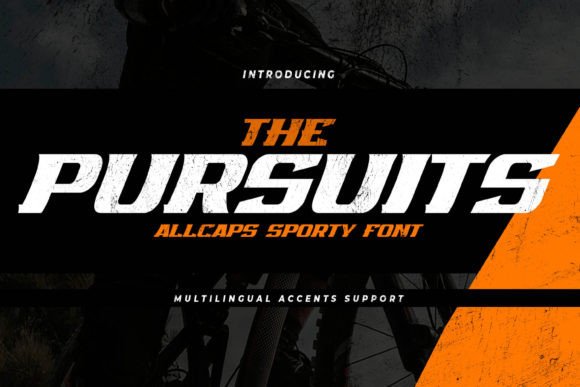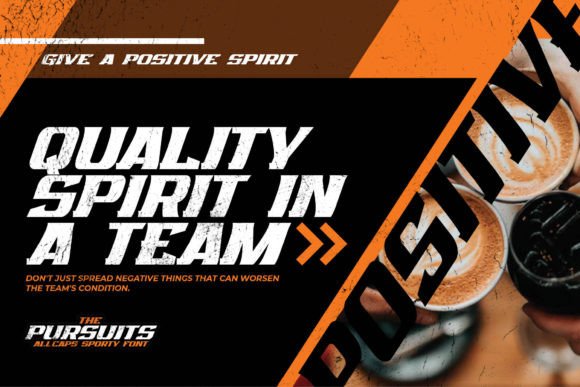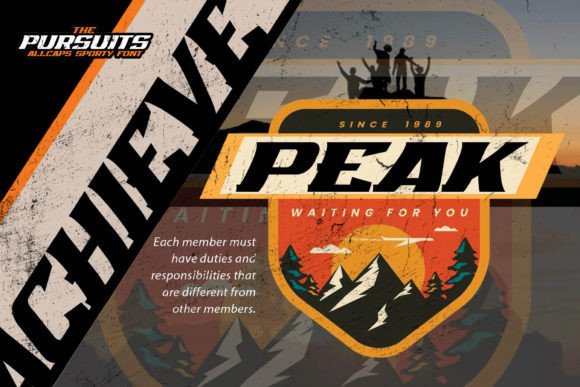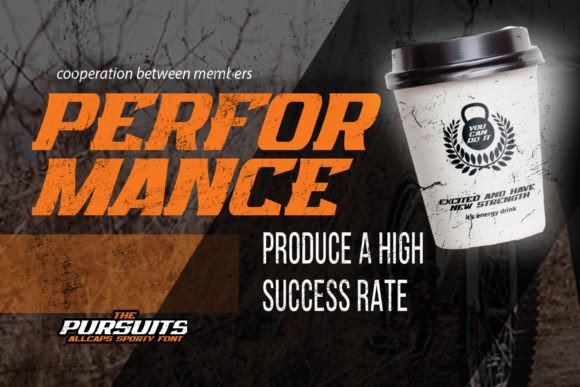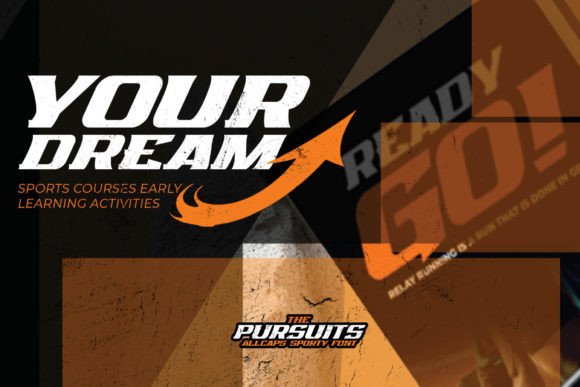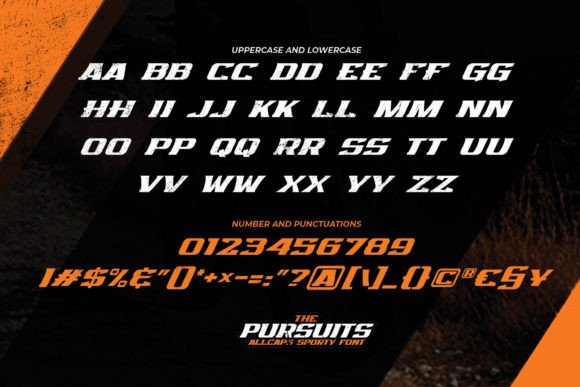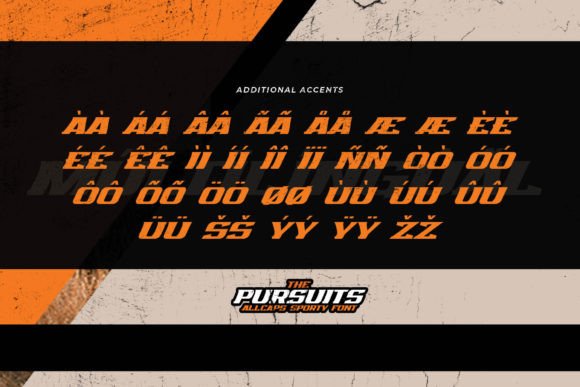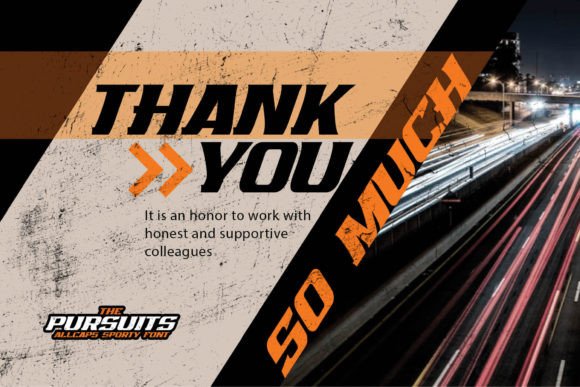
The Pursuits
The Pursuits: A Sporty and Textured Slab Serif Font
The Pursuits is an all-caps slab serif font that combines sporty style with natural textures and dramatic movement. This versatile typeface brings charming, authentic, and relaxed characteristics to various creative applications.
Key Features of The Pursuits
• All-Caps Design: Offers bold, uppercase letterforms.
• Natural Texture: Features organic, textured elements.
• Dramatic Movement: Brings dynamic energy to designs.
• Classy Character: Maintains sophisticated appeal.
Best Uses for The Pursuits
Thanks to its versatile characteristics, The Pursuits works especially well for:
When using The Pursuits in your designs, keep these tips in mind:
• Use its all-caps nature for impactful headlines.
• Let its natural texture enhance organic designs.
• Take advantage of its dramatic movement for dynamic layouts.
• Embrace its relaxed character for authentic appeal.
To sum up, The Pursuits is an excellent choice for designers seeking a sporty and textured slab serif font. Its versatility makes it perfect for various creative projects. Whether you’re creating logos, designing invitations, or developing product packaging, The Pursuits offers the perfect blend of natural style and dramatic impact.
Furthermore, The Pursuits’ distinctive design allows it to shine in contexts where both authenticity and sophistication are key. For instance, from wedding designs to special events, this font can elevate your projects with its charming style. Also, its textured yet classy appearance works particularly well in designs that aim to make a natural, relaxed impact.
In conclusion, The Pursuits truly captures the essence of sporty elegance in slab serif typography. Its ability to enhance various applications shows how well it can serve creative needs. Therefore, for those wanting to add a touch of natural sophistication to their work, The Pursuits can transform any design with its distinctive style. Ultimately, it’s perfect for designers aiming to make an authentic, dramatic impact across creative projects.